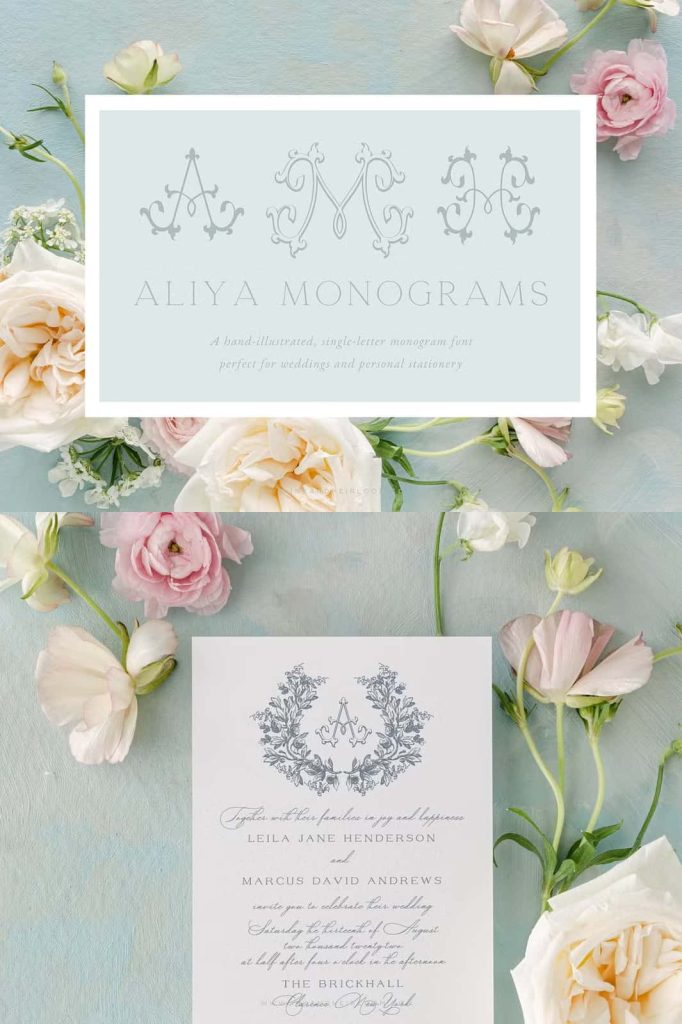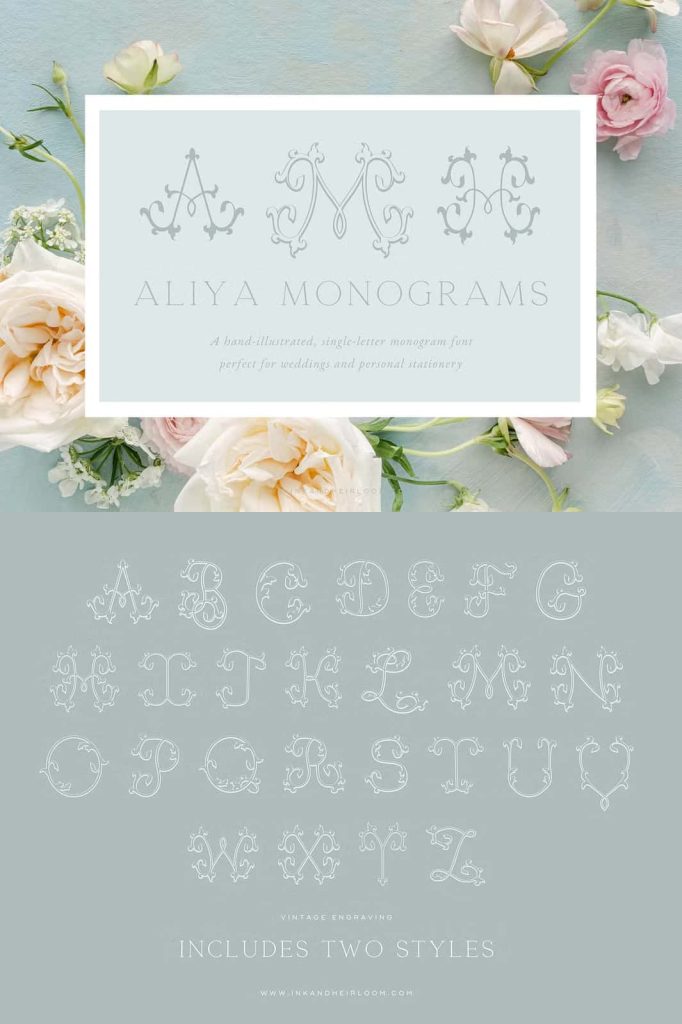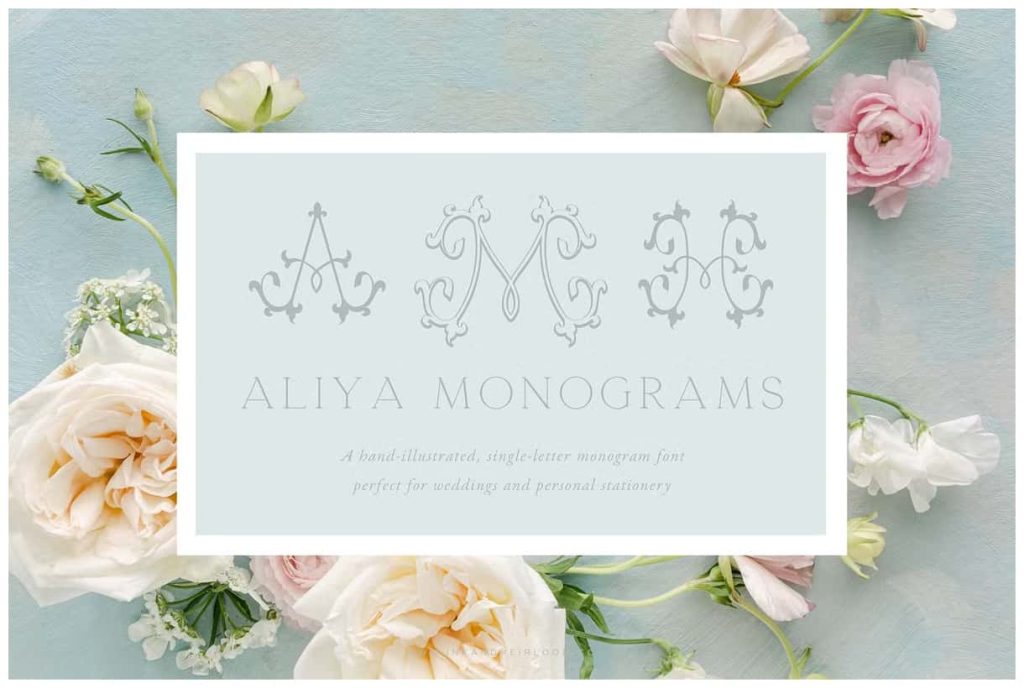
Aliya Monogram FontleastedJune 12, 2025Fonts Our first official monogram font, Aliya Monograms features elegant vintage style single monograms in two different styles. Download